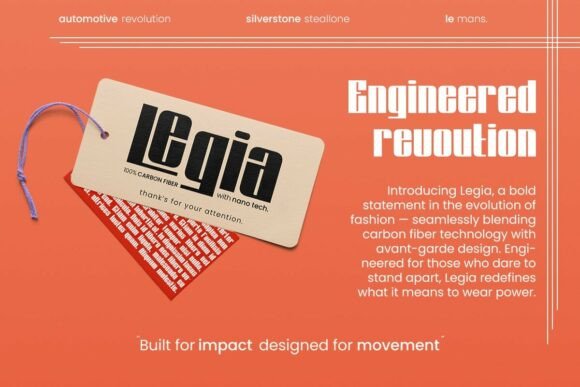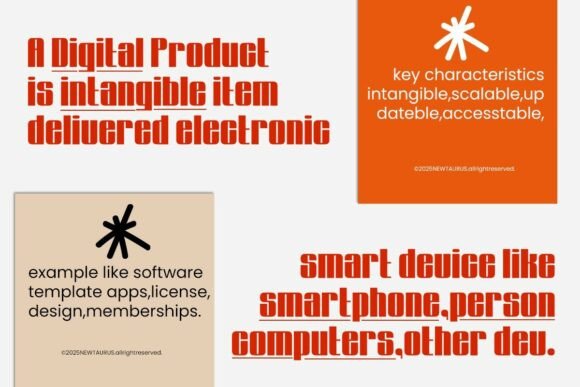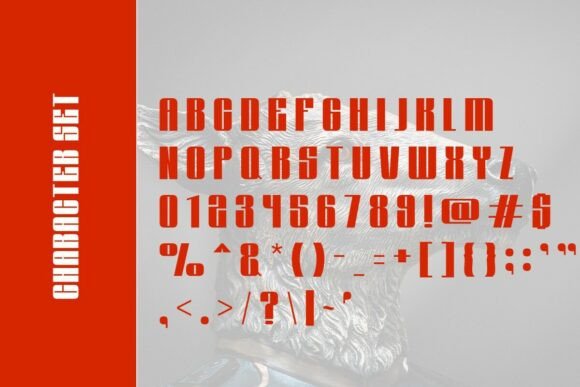
Introduction to New Taurus Font
New Taurus is a bold sans serif condensed typeface designed to command attention in high-energy, visual-forward designs.
With a striking, geometric letterform and compressed layout, it delivers power and edge in every character Perfect for Gen-Z-driven visuals and streetwear aesthetics, New Taurus thrives in youth-centric design environments like music promotions, tech startups, and creative Instagram content.